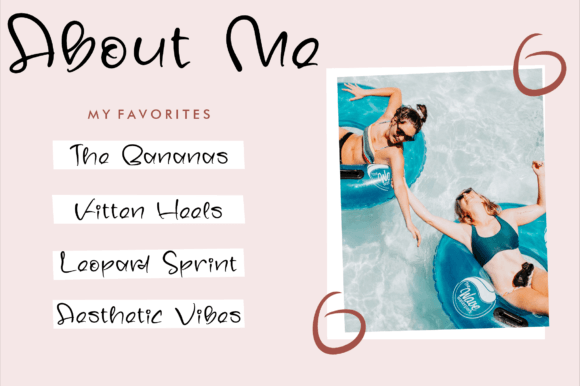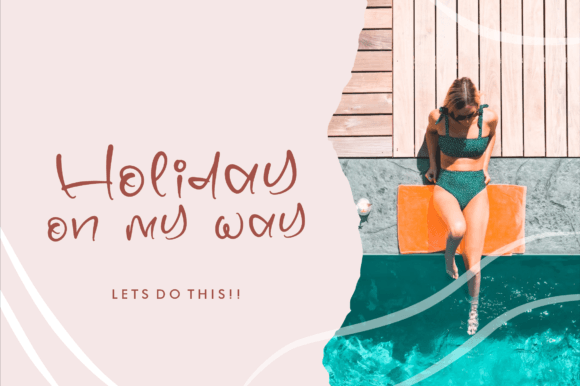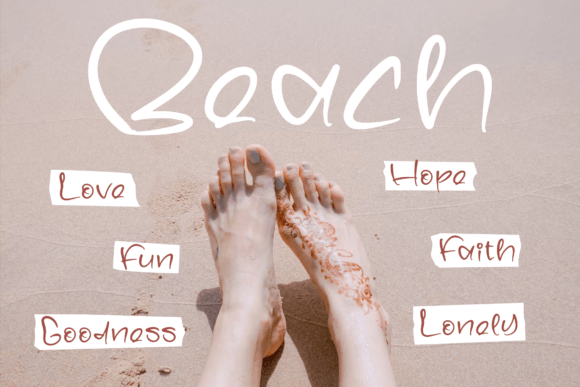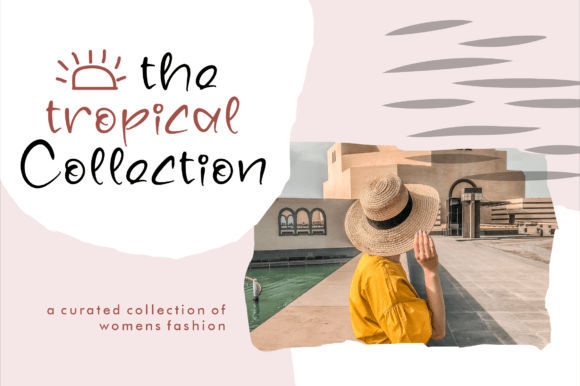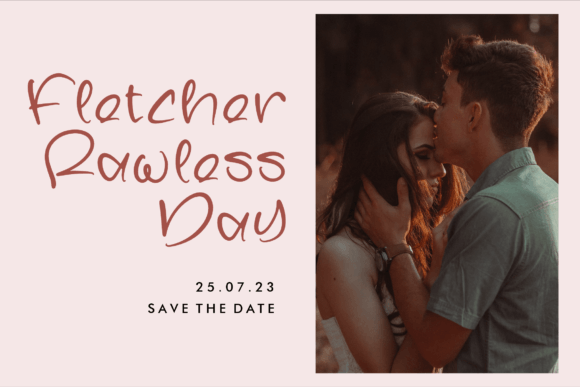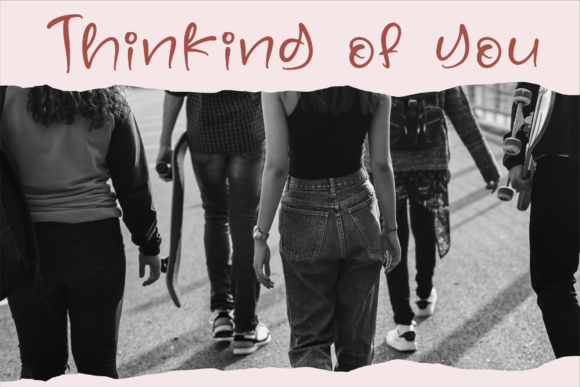
Introducing Firework Cutties Font: The Ultimate Cute Handwritten Font for Designers and Crafters
Are you a designer or crafter looking for a unique and adorable font to elevate your projects? Look no further than Firework Cutties Font, a beautiful handwritten font created by Letterfabric Studio. This charming font is perfect for a wide range of applications, from logos and branding projects to homeware designs, product packaging, and more.
What Makes Firework Cutties Font So Special?
Firework Cutties Font is a one-of-a-kind, handcrafted font that exudes a playful and whimsical feel. Its cute and delicate lettering makes it an ideal choice for designers and crafters who want to add a touch of personality to their projects. The font’s unique and irregular shape gives it a human-like quality, making it perfect for projects that require a personal touch.
Uses for Firework Cutties Font
Firework Cutties Font is incredibly versatile and can be used for a wide range of projects, including:
- Logos and branding projects: Create a memorable and eye-catching logo that sets your brand apart.
- Homeware designs: Add a touch of personality to your home decor with custom wall art, throw pillows, and more.
- Product packaging: Make your products stand out on store shelves with unique and eye-catching packaging.
- Mugs and ceramics: Create personalized mugs, plates, and other ceramics that make perfect gifts.
- Quotes and posters: Add a touch of inspiration to your walls with custom quotes and posters.
- Shopping bags and packaging: Elevate your brand’s shopping experience with custom bags and packaging.
- T-shirts and apparel: Create unique and stylish t-shirts, hoodies, and other apparel.
- Book covers and journals: Add a touch of personality to your book covers and journals.
- Name cards and invitation cards: Create beautiful and elegant name cards and invitation cards.
- Greeting cards and labels: Add a personal touch to your greeting cards and labels.
- Photography and watermark: Use Firework Cutties Font as a watermark for your photos or add text to your images.
- Special events: Create custom signage, banners, and decorations for your special events.
Why Choose Firework Cutties Font?
There are many reasons why Firework Cutties Font stands out from other fonts:
- Unique and handmade: Each letter is carefully crafted to give the font a personal and human-like quality.
- Easy to read: Despite its playful and irregular shape, Firework Cutties Font is easy to read and understand.
- Versatile: The font can be used for a wide range of projects, from digital to print.
- High-quality: Firework Cutties Font is a high-quality font that is perfect for professional designers and crafters.
Tips for Using Firework Cutties Font
Here are some tips for getting the most out of Firework Cutties Font:
- Experiment with different colors: Firework Cutties Font looks great in a variety of colors, so don’t be afraid to experiment.
- Pair with other fonts: Firework Cutties Font pairs well with other fonts, so try combining it with other fonts for a unique look.
- Use for headlines and titles: Firework Cutties Font is perfect for headlines and titles, but it can also be used for body text.
- Make it your own: Don’t be afraid to add your own personal touch to Firework Cutties Font by adjusting the size, spacing, and style.
Firework Cutties Font is a unique and adorable handwritten font that is perfect for designers and crafters. Its versatility, high-quality, and ease of use make it an ideal choice for a wide range of projects. Whether you’re looking to create a logo, branding project, or simply add a touch of personality to your designs, Firework Cutties Font is the perfect choice.